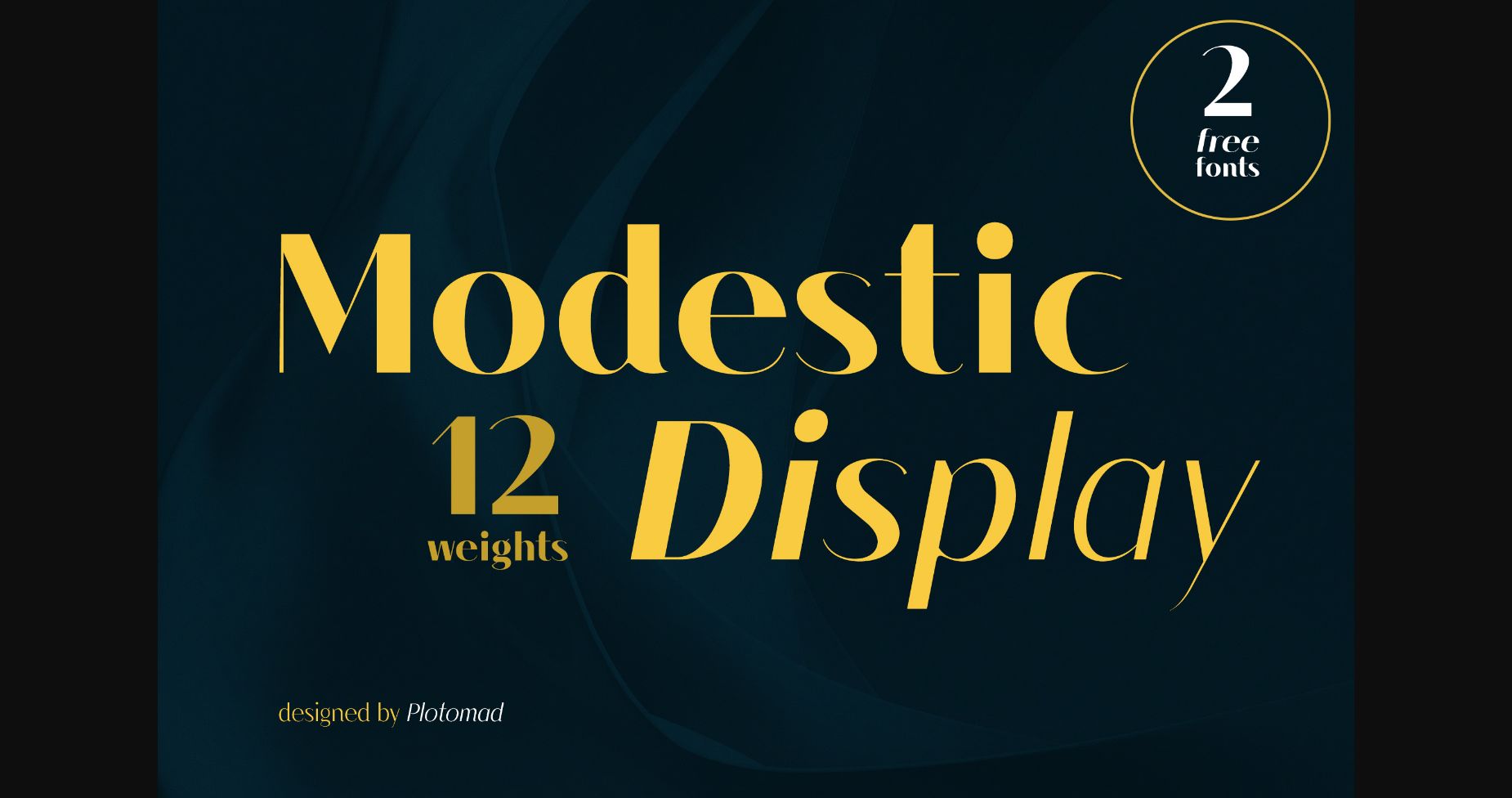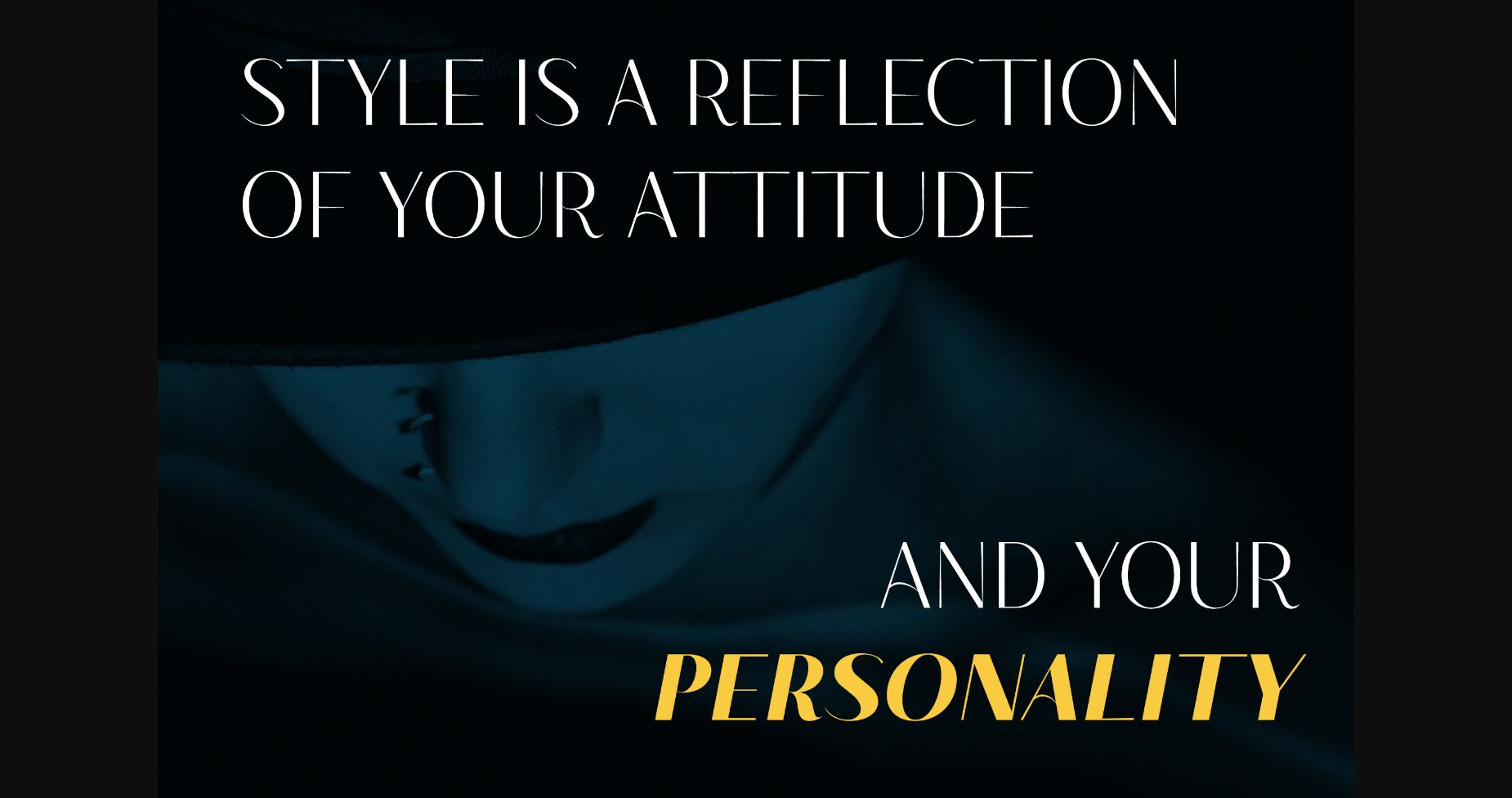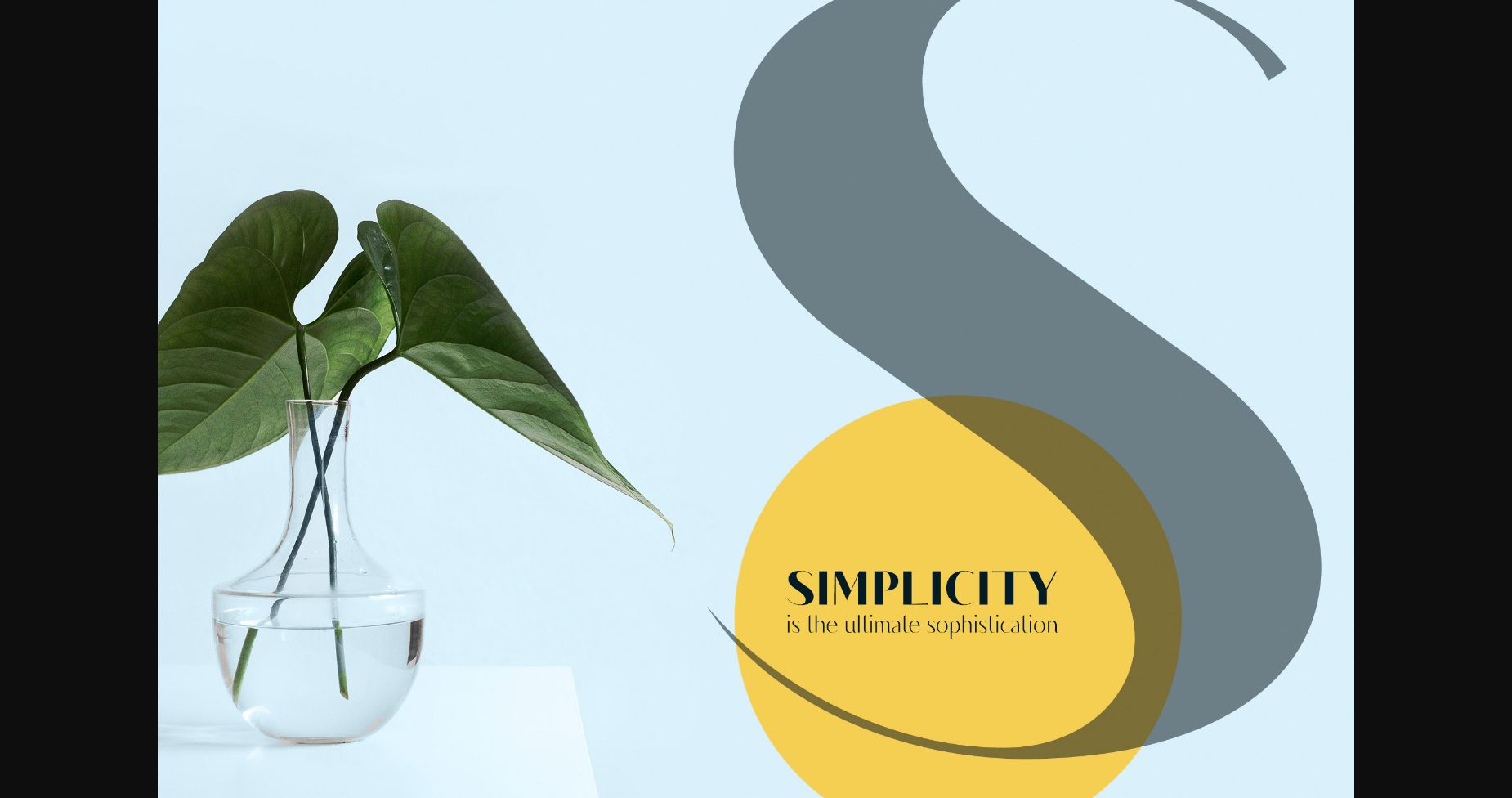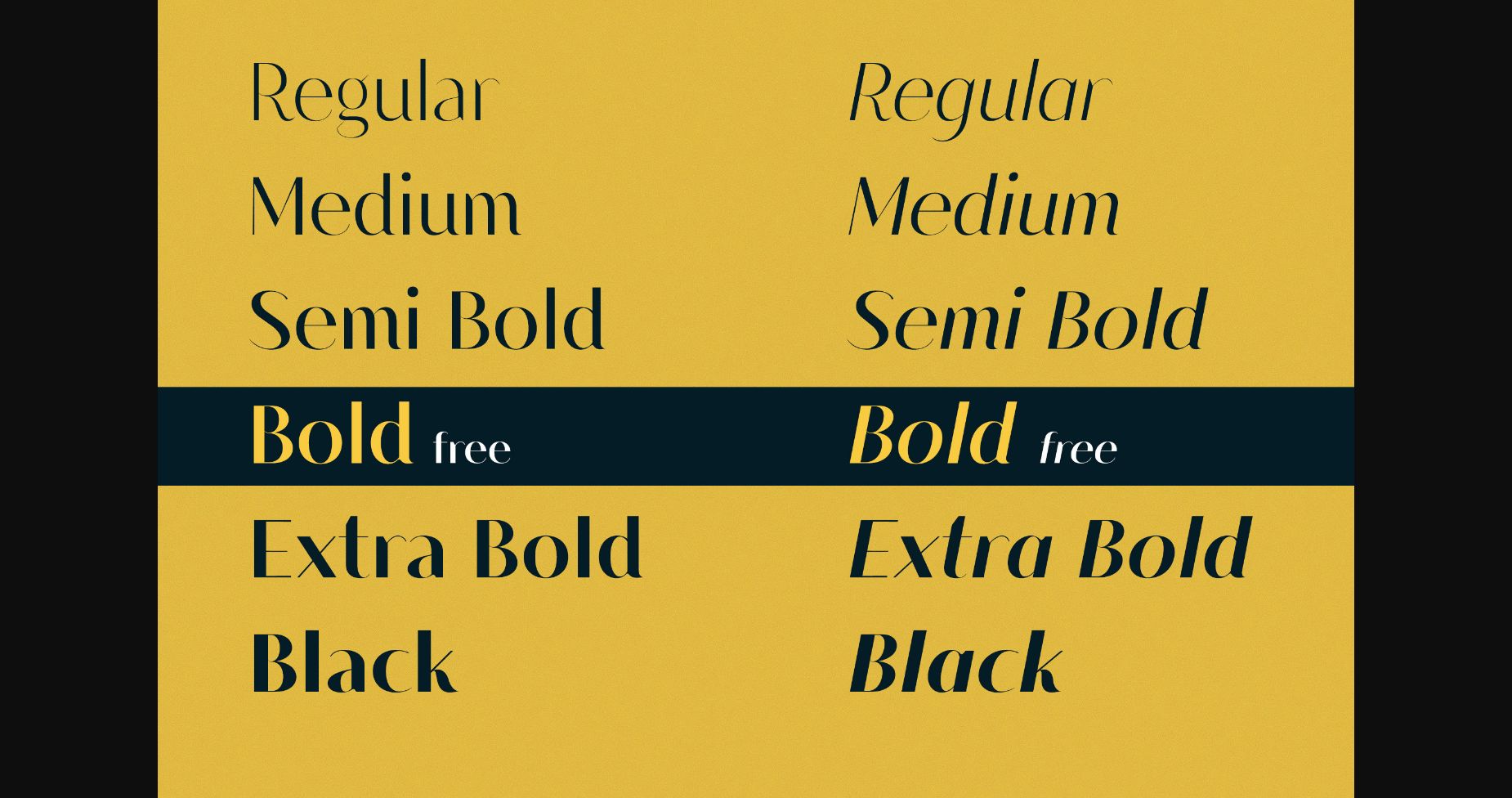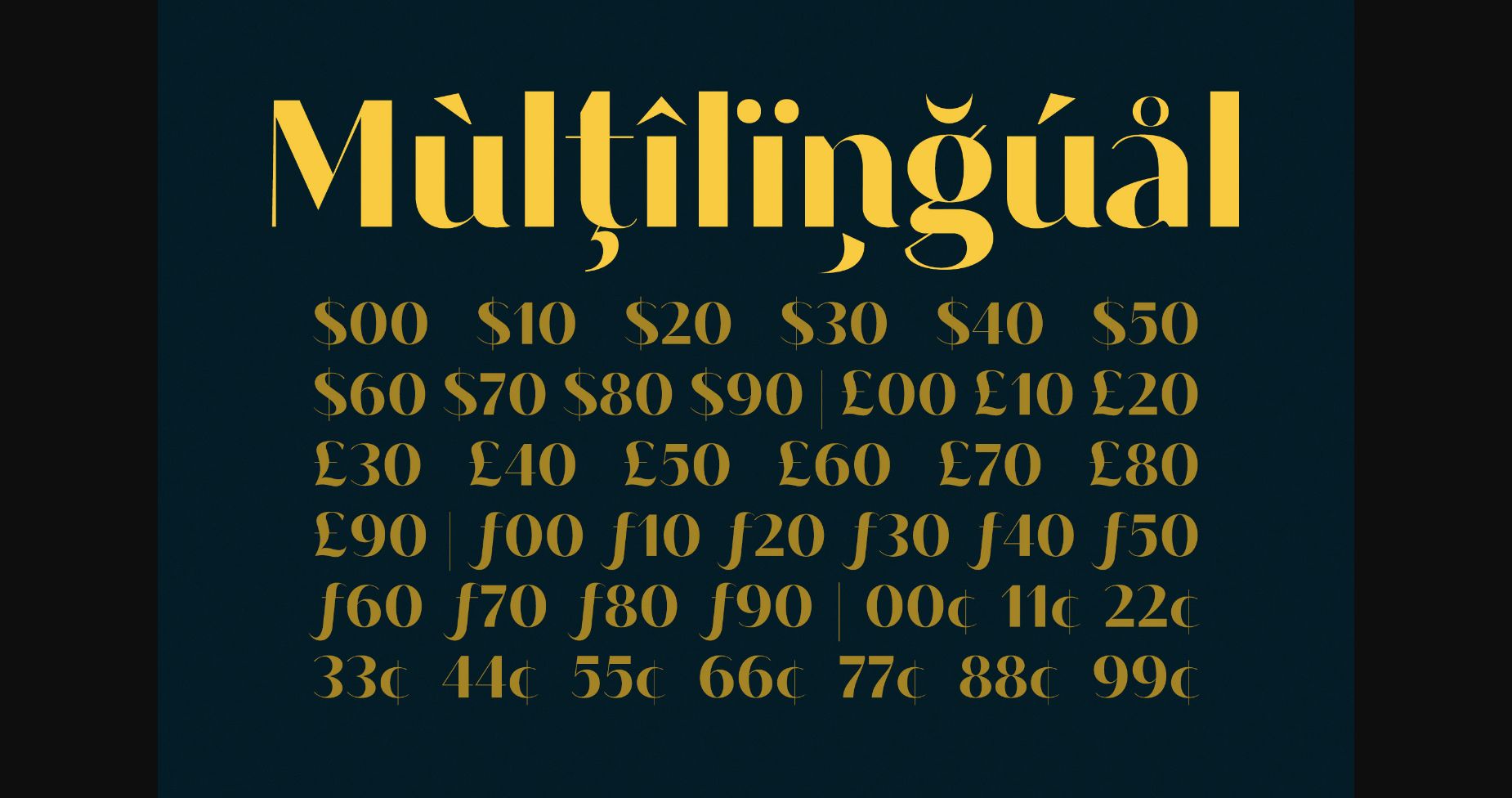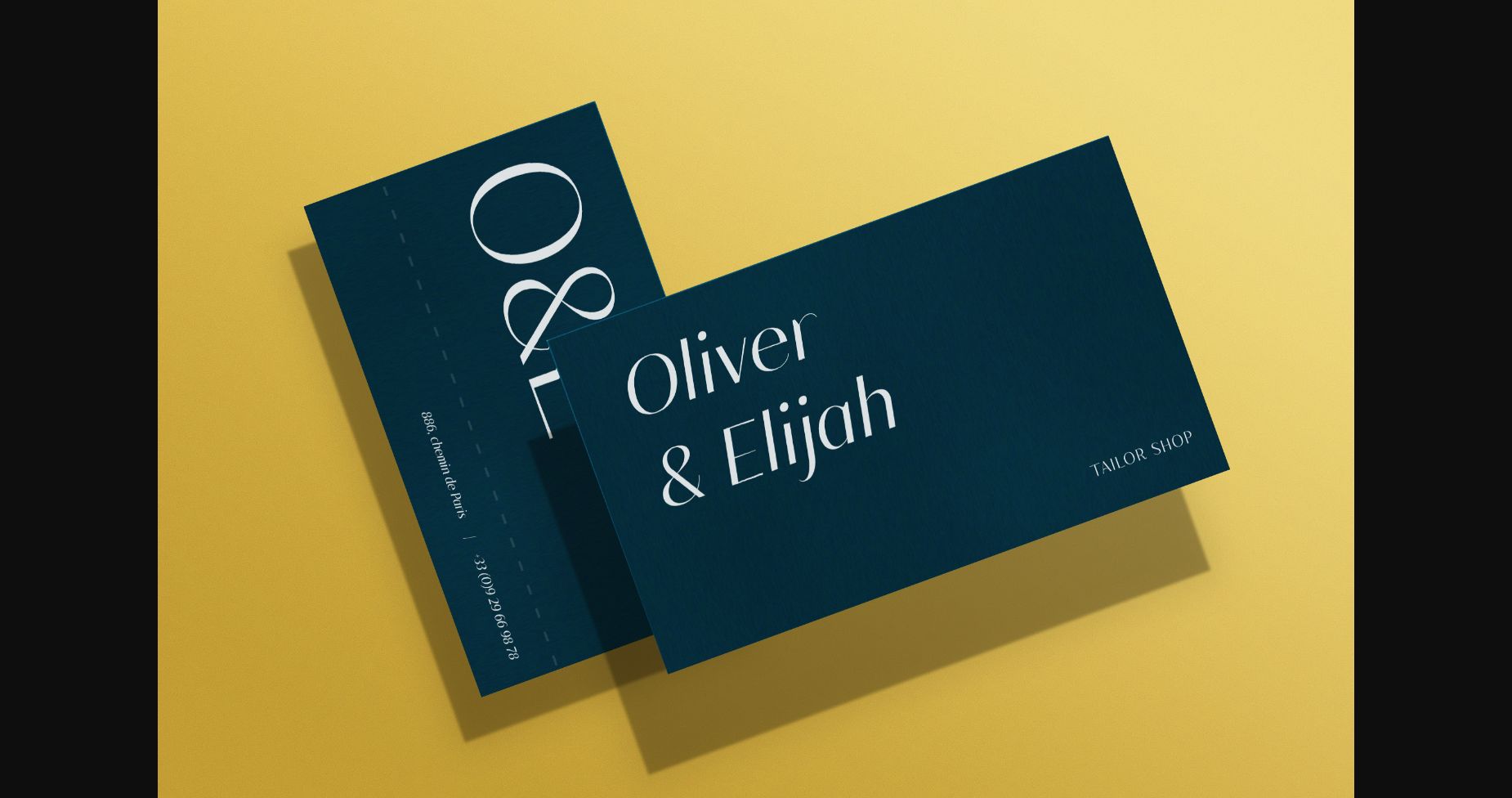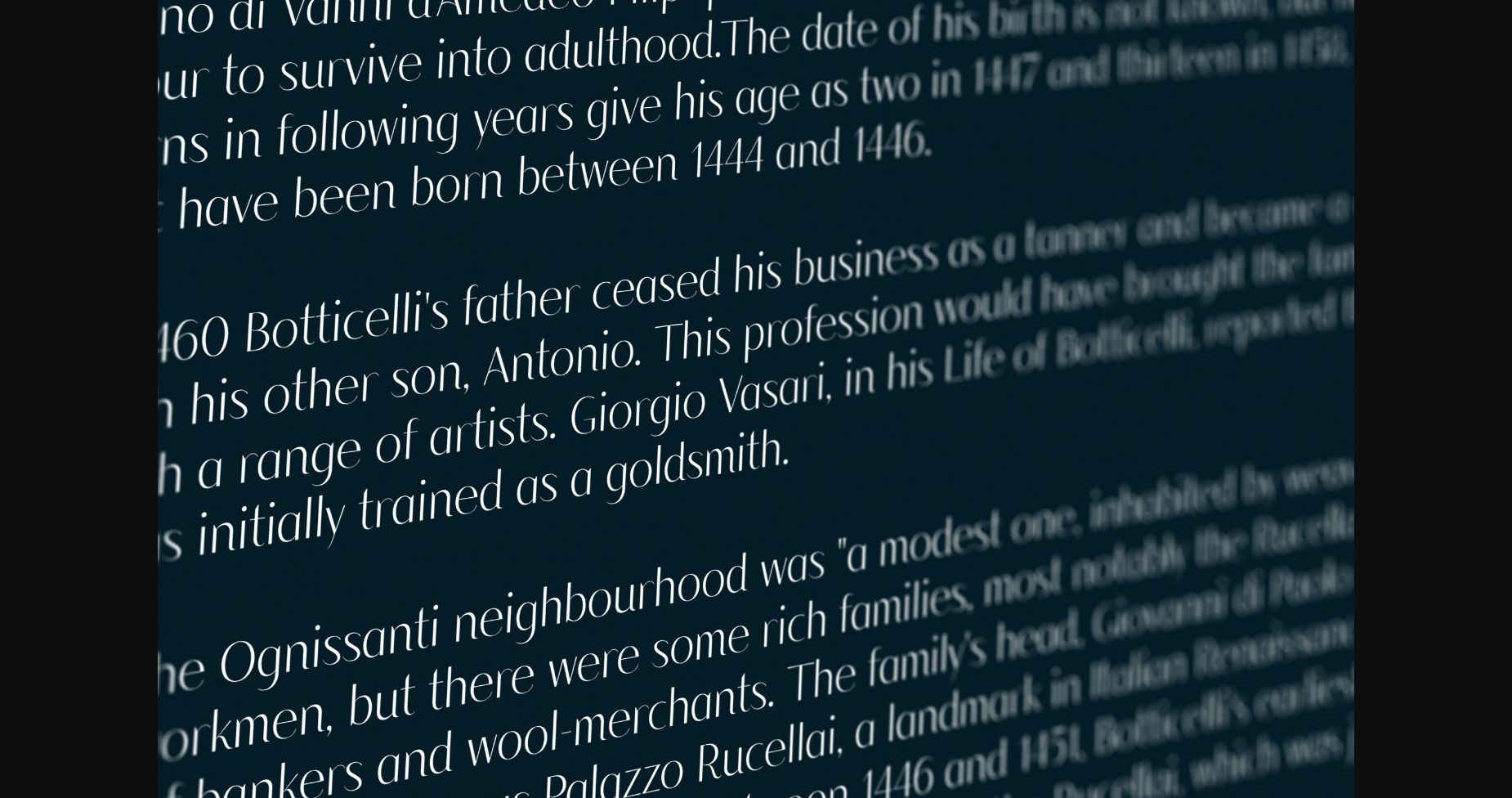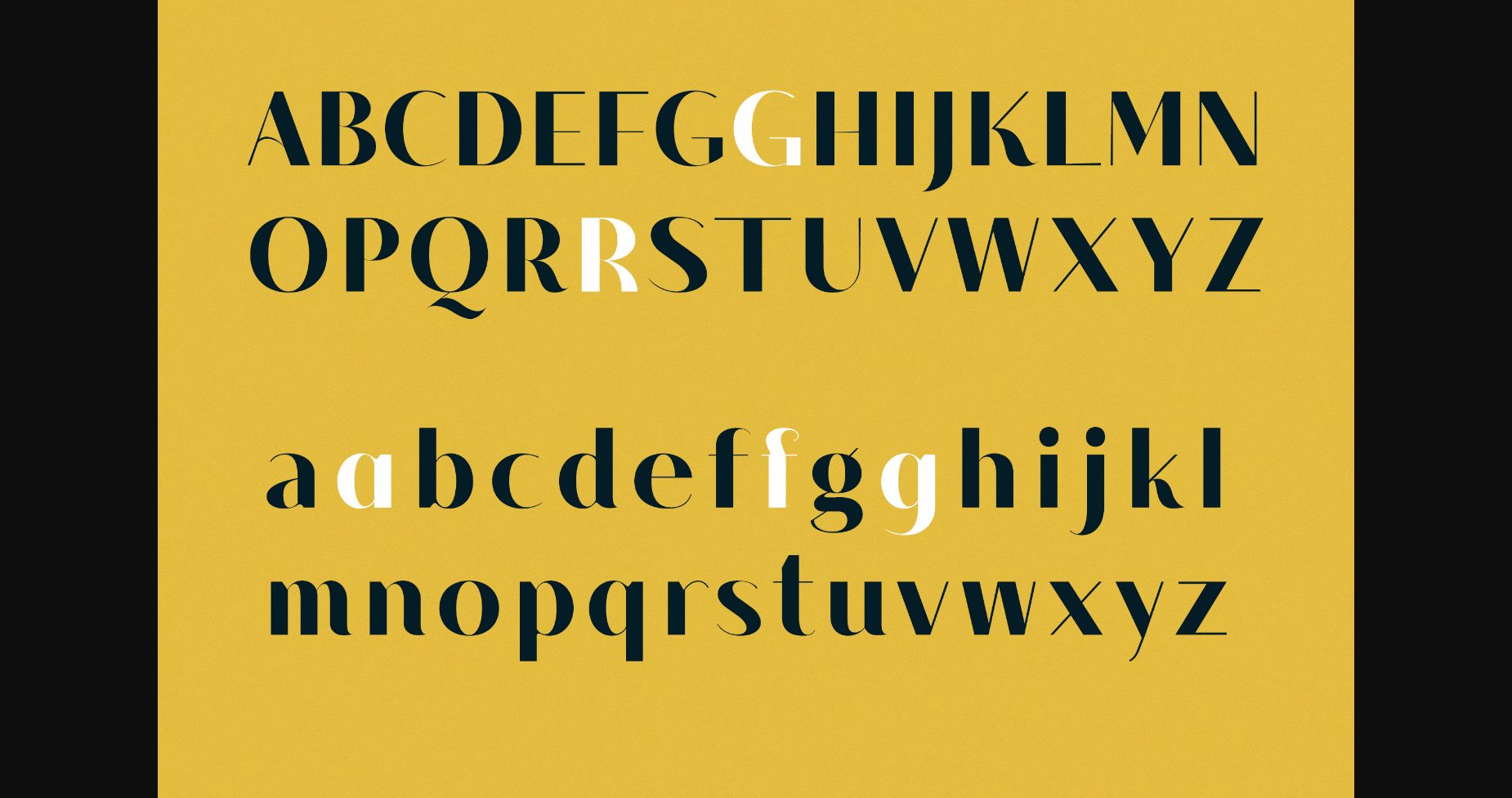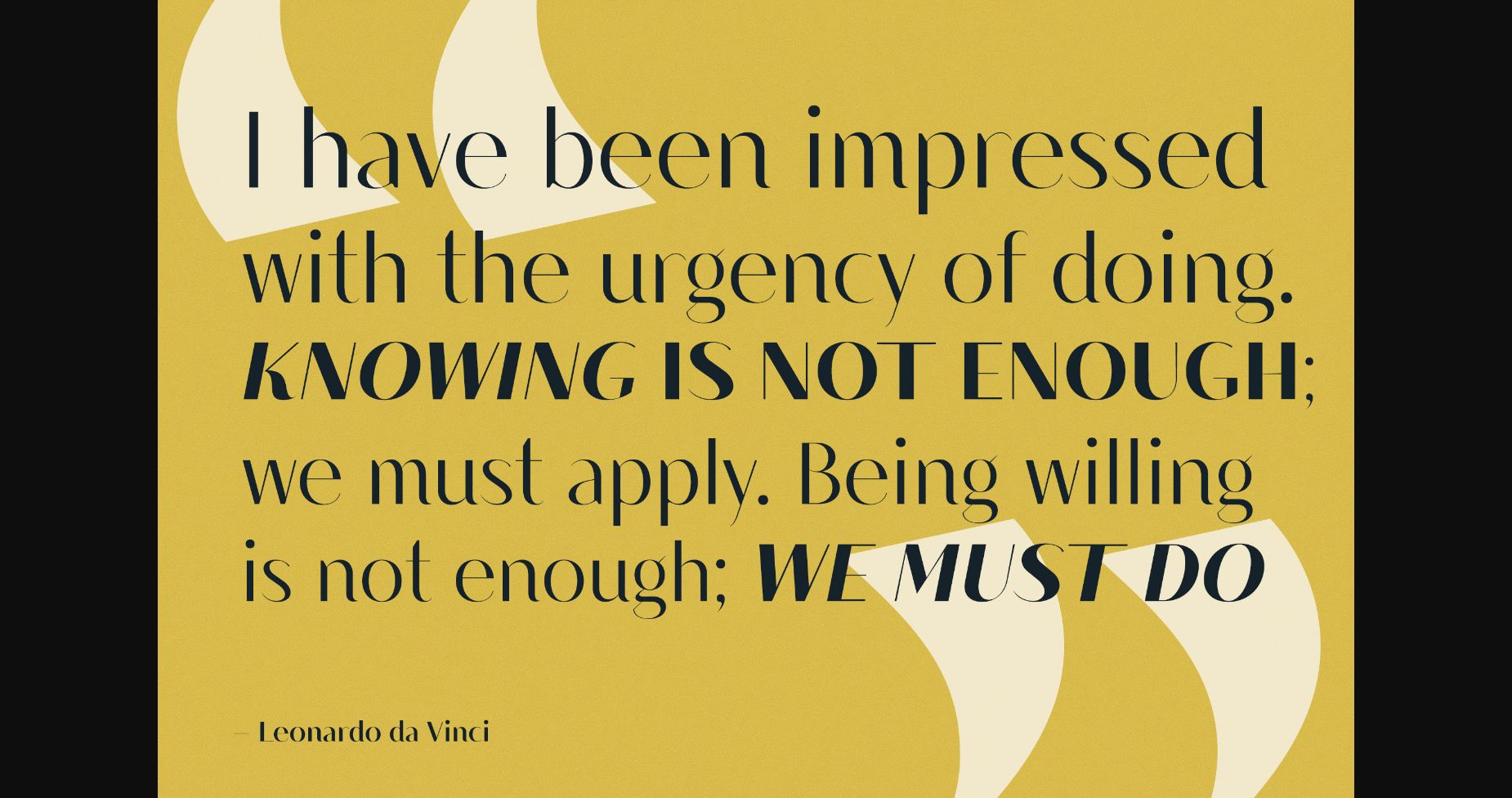
Modestic Display Font
About Modestic Display Font
Modestic Display is a chic and modern sans-serif font that embodies elegance and minimalism. Its rounded edges and clean design make it easy on the eyes, while its versatility allows it to be used for various applications such as branding, advertising, and web design. Modestic Display is a must-have for any modern design project.